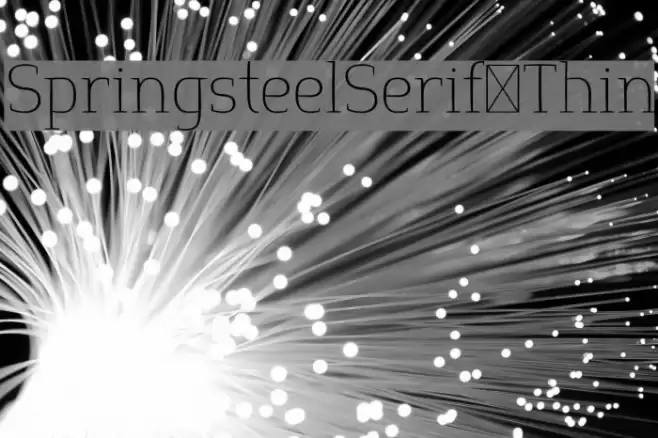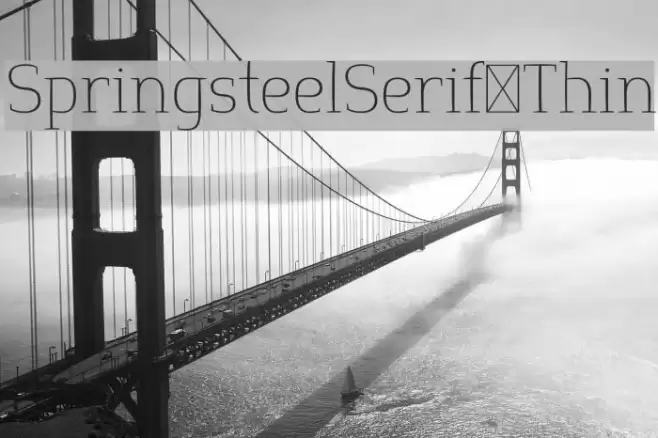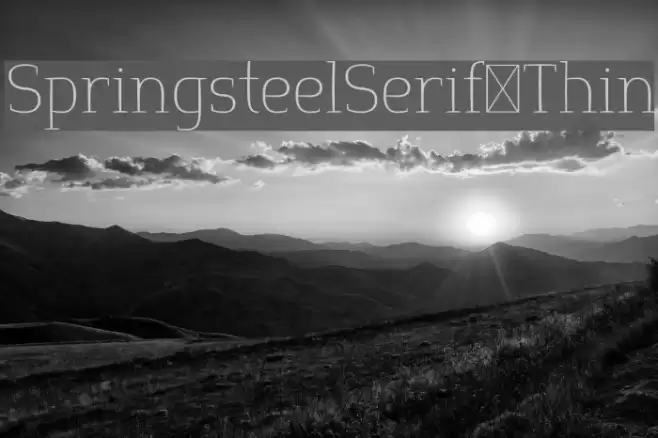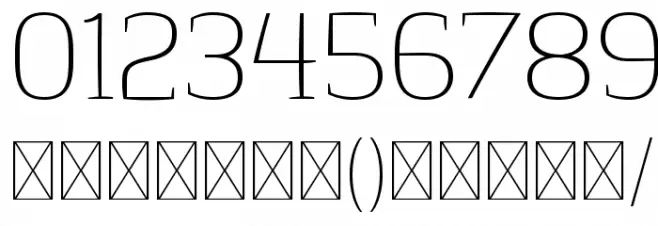
SpringsteelSerif-Thin Font
SpringsteelSerif-Thin Description
This font features a refined and elegant serif style with thin strokes that convey a sense of sophistication and modernity. The uppercase letters are tall and slender, while the lowercase letters maintain a consistent height, providing a harmonious balance. The numerals are clear and distinct, ensuring readability. The overall design is clean and minimalistic, making it suitable for a variety of applications. The thin serifs add a touch of classic elegance without overpowering the overall modern aesthetic.
A refined serif font with thin strokes and a modern, elegant style from Uncategorized fonts.
- Proposed Projects: Ideal for luxury branding, editorial design, wedding invitations, and high-end product packaging.